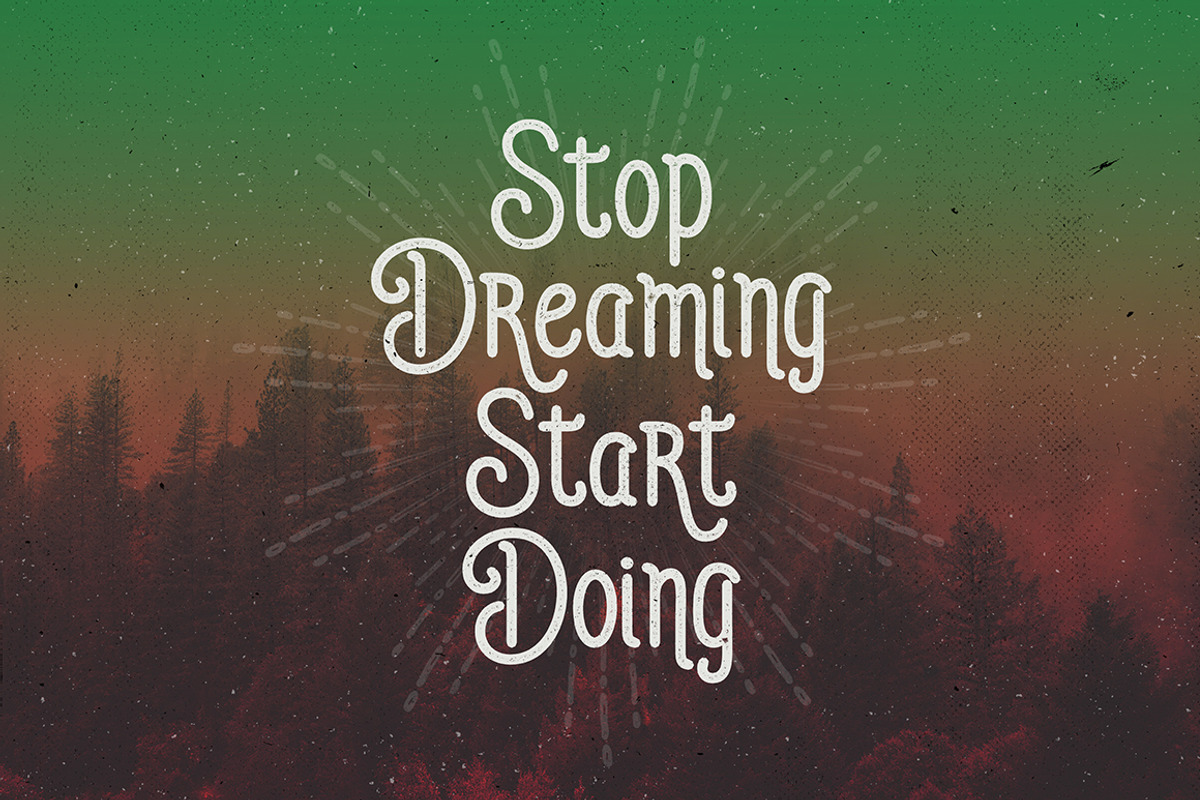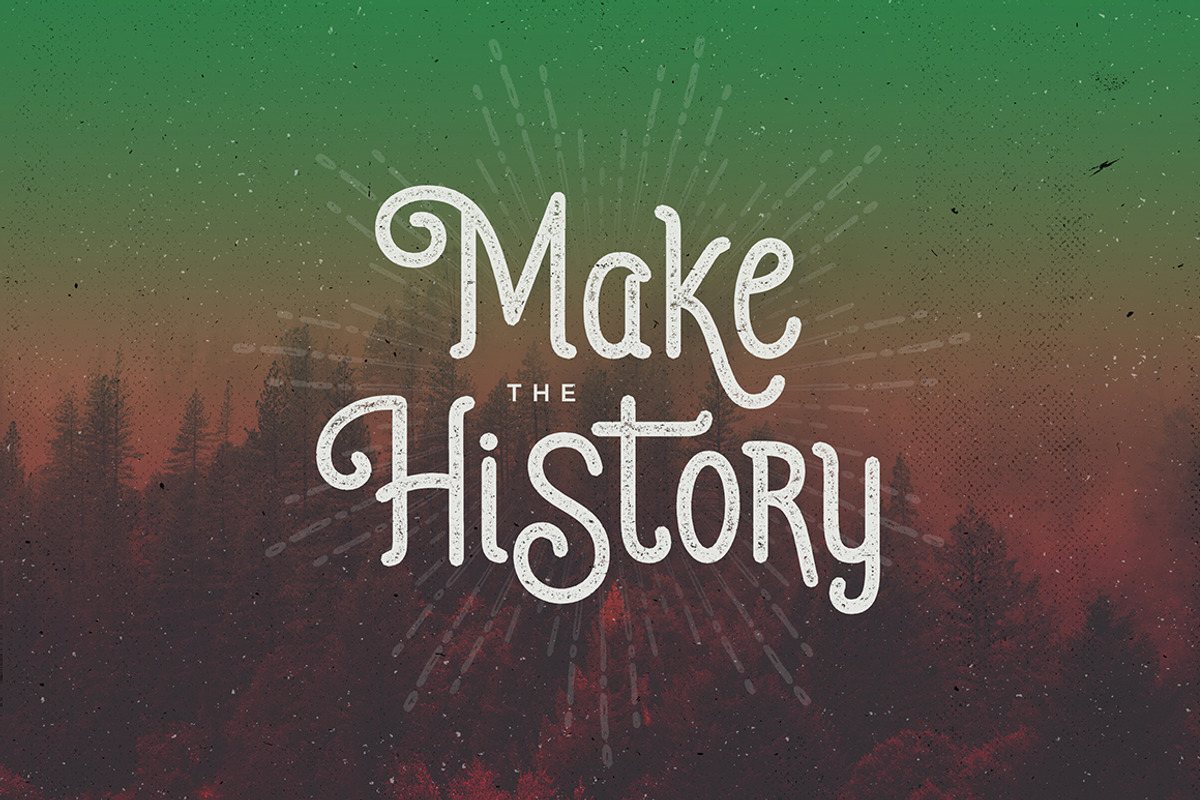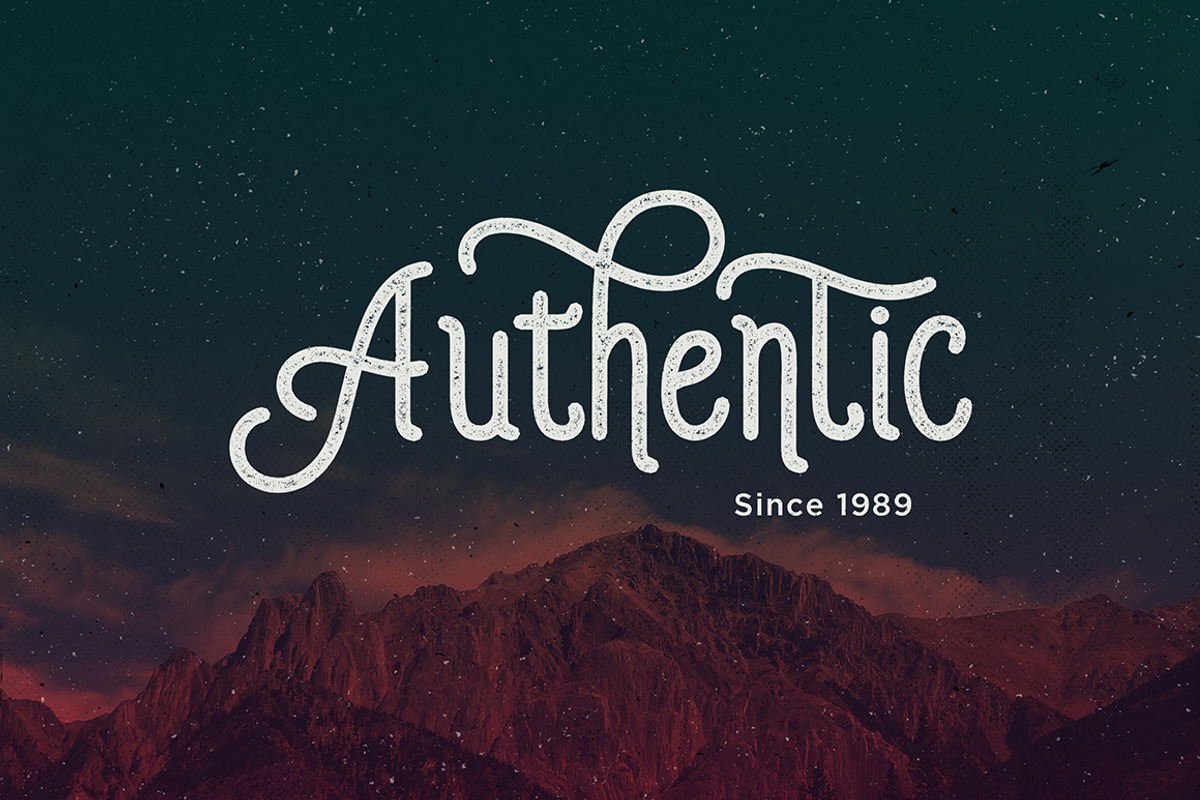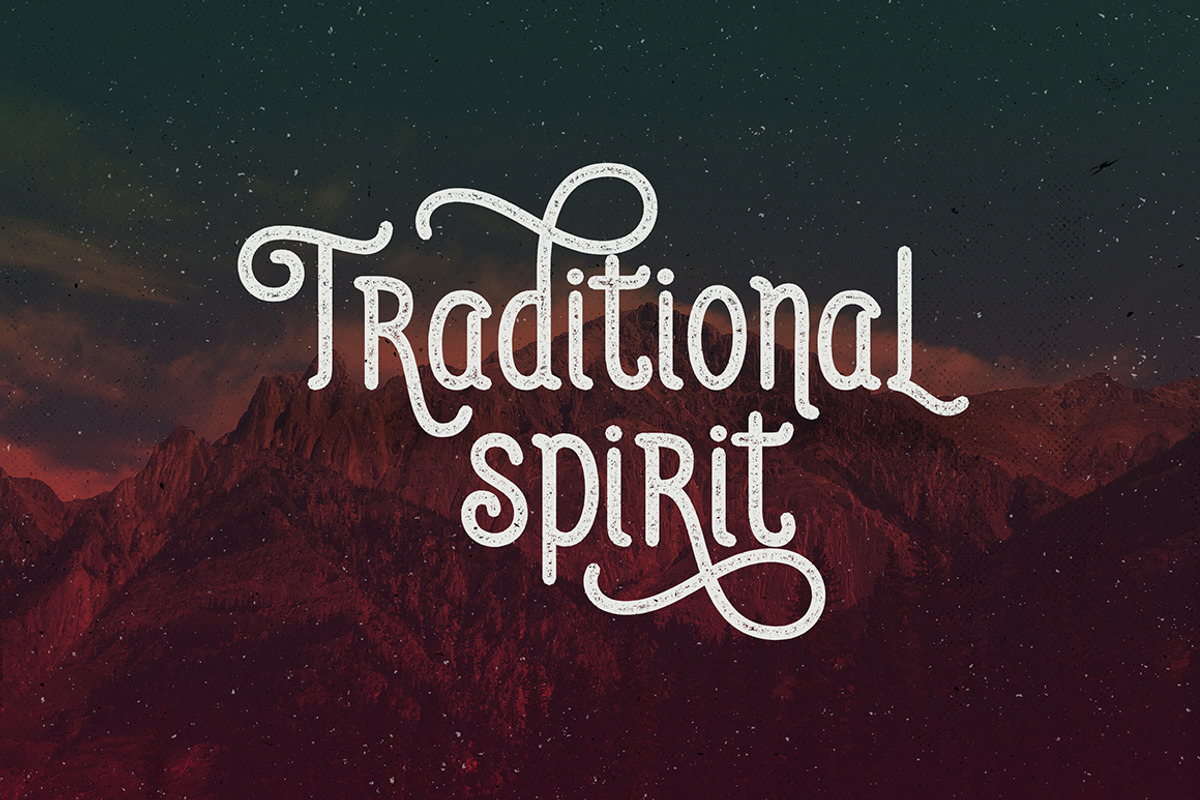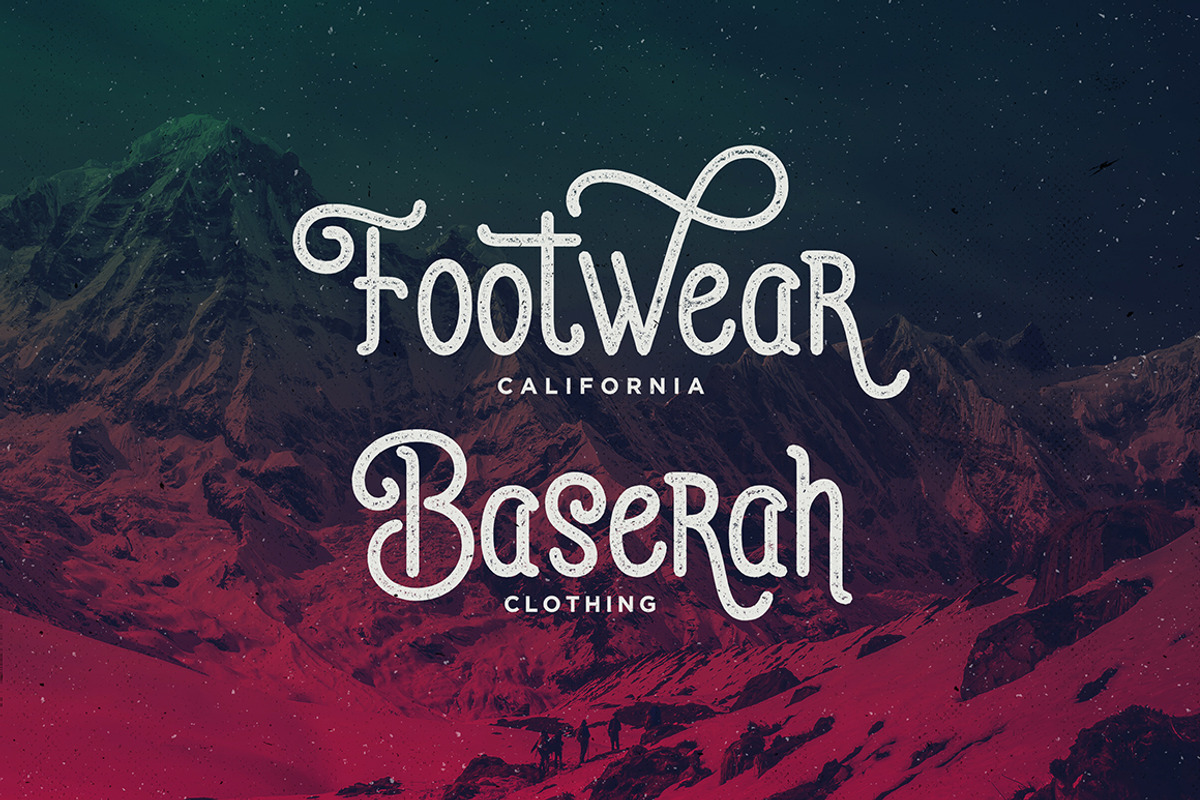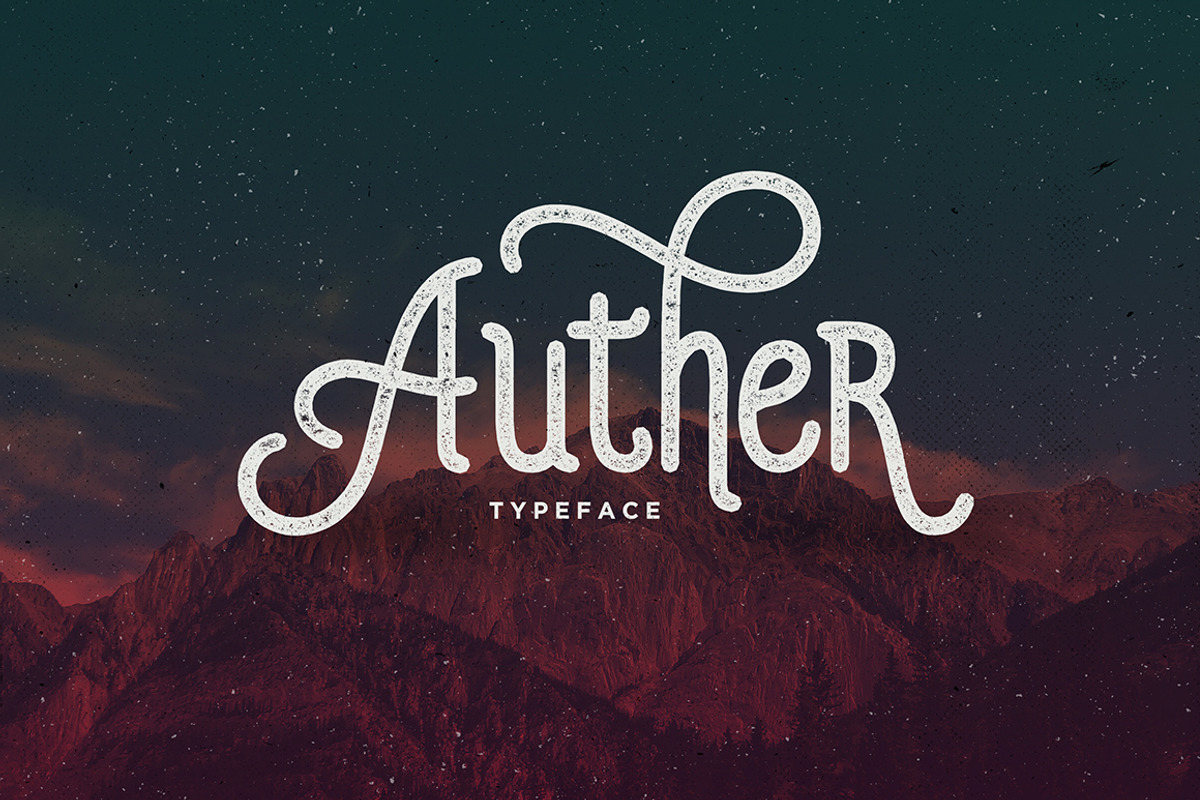
Auther Typeface
Auther Typeface by Seniors is a font selected for branding, posters, packaging, typography.
- OpenType features with stylistic alternates, ligatures and multiple language support.You can use this font for various purposes such as logo
Why Auther Typeface is worth a look
Auther Typeface by Seniors fits naturally into Branding, posters, packaging, typography.